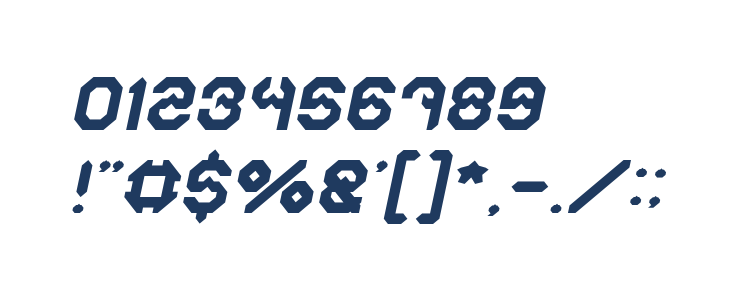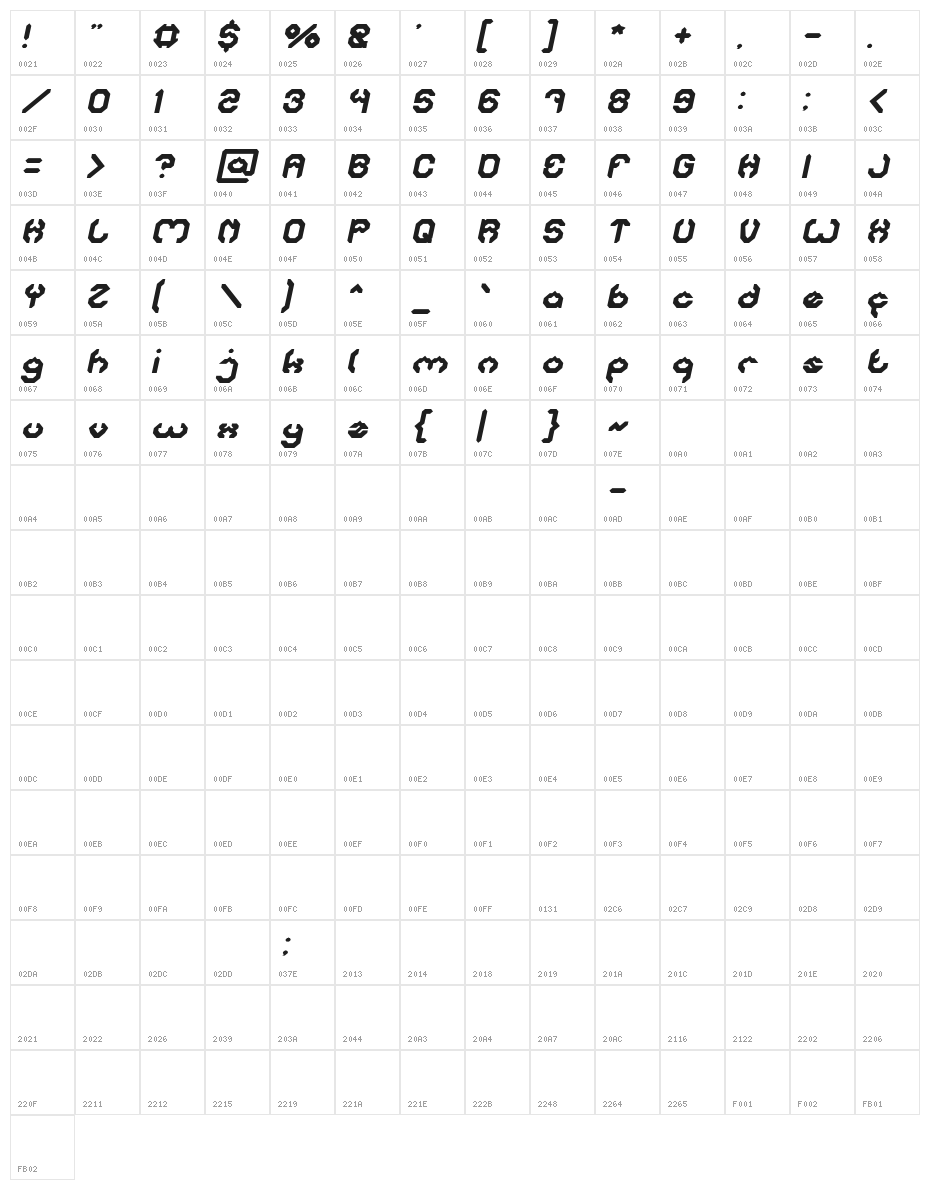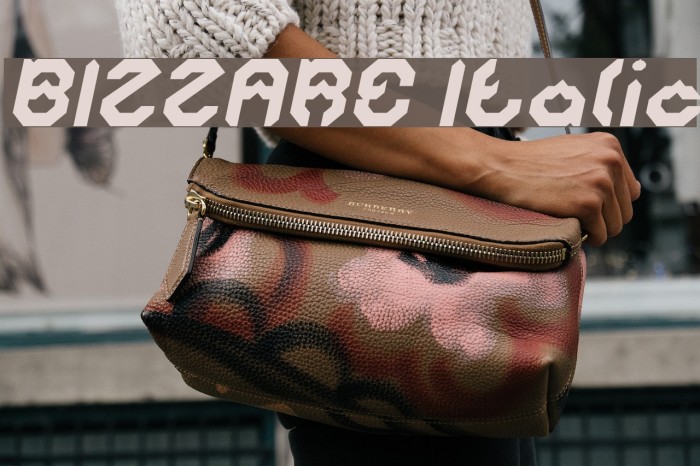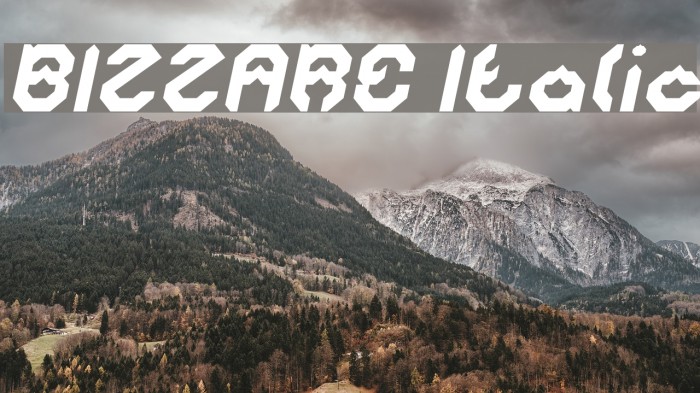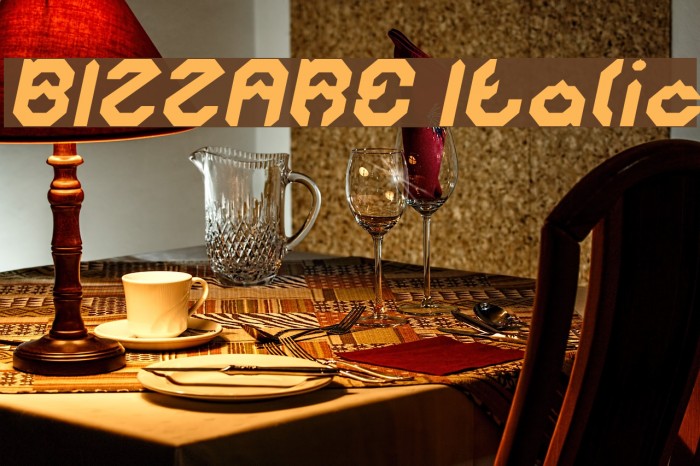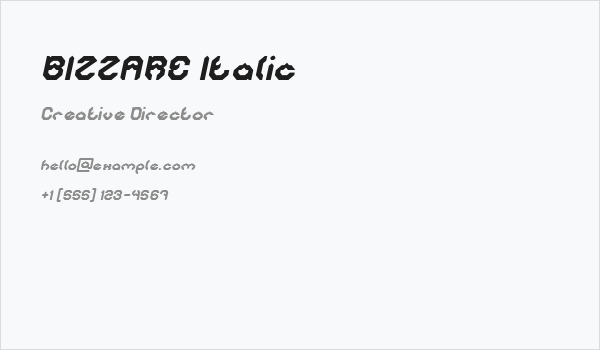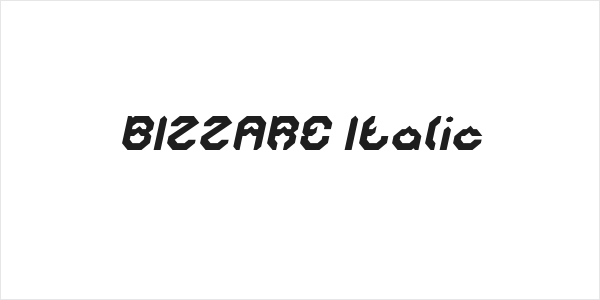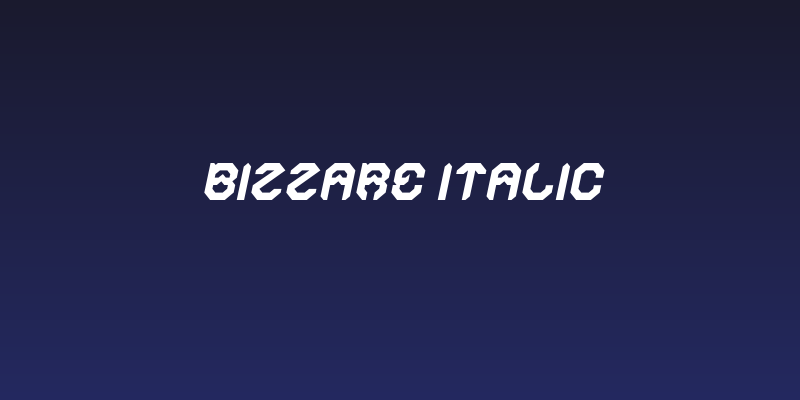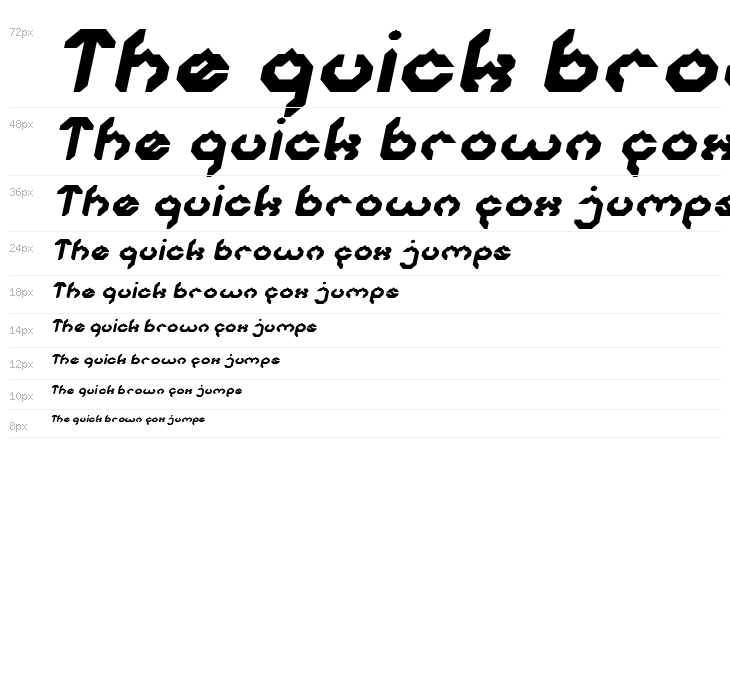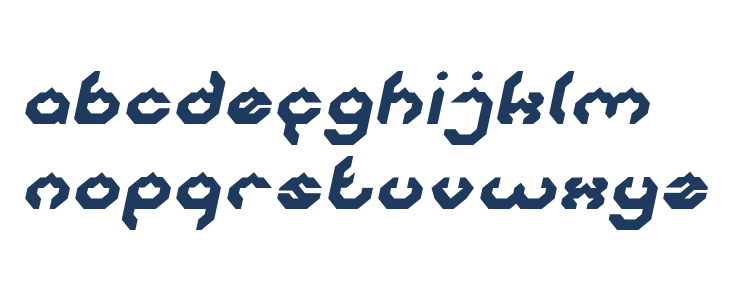
BIZZARE Italic Font
BIZZARE Italic Description
This font features a bold and angular design with a distinct italic slant, giving it a dynamic and edgy appearance. The characters are constructed with sharp, geometric shapes, creating a futuristic and unconventional style. The uppercase and lowercase letters maintain a consistent angular theme, while the numbers and special characters follow suit with the same bold and striking design. The overall look is both modern and unique, making it stand out in any application.
| Proposed Projects | Ideal for sci-fi themed projects, video game titles, posters, and branding that requires a modern and edgy look. |